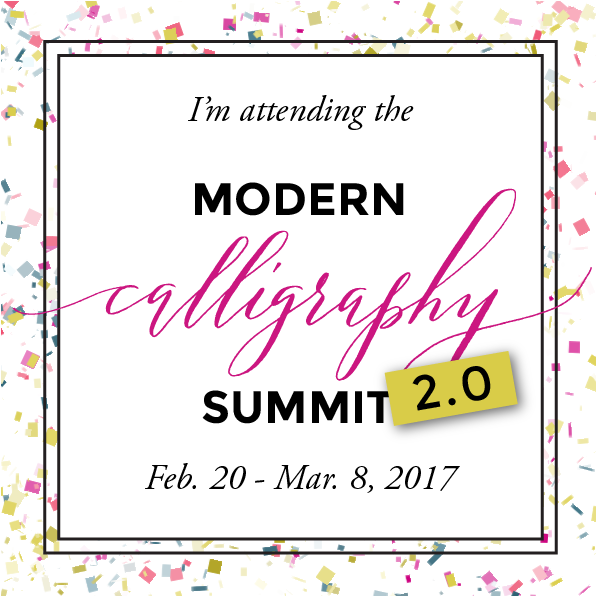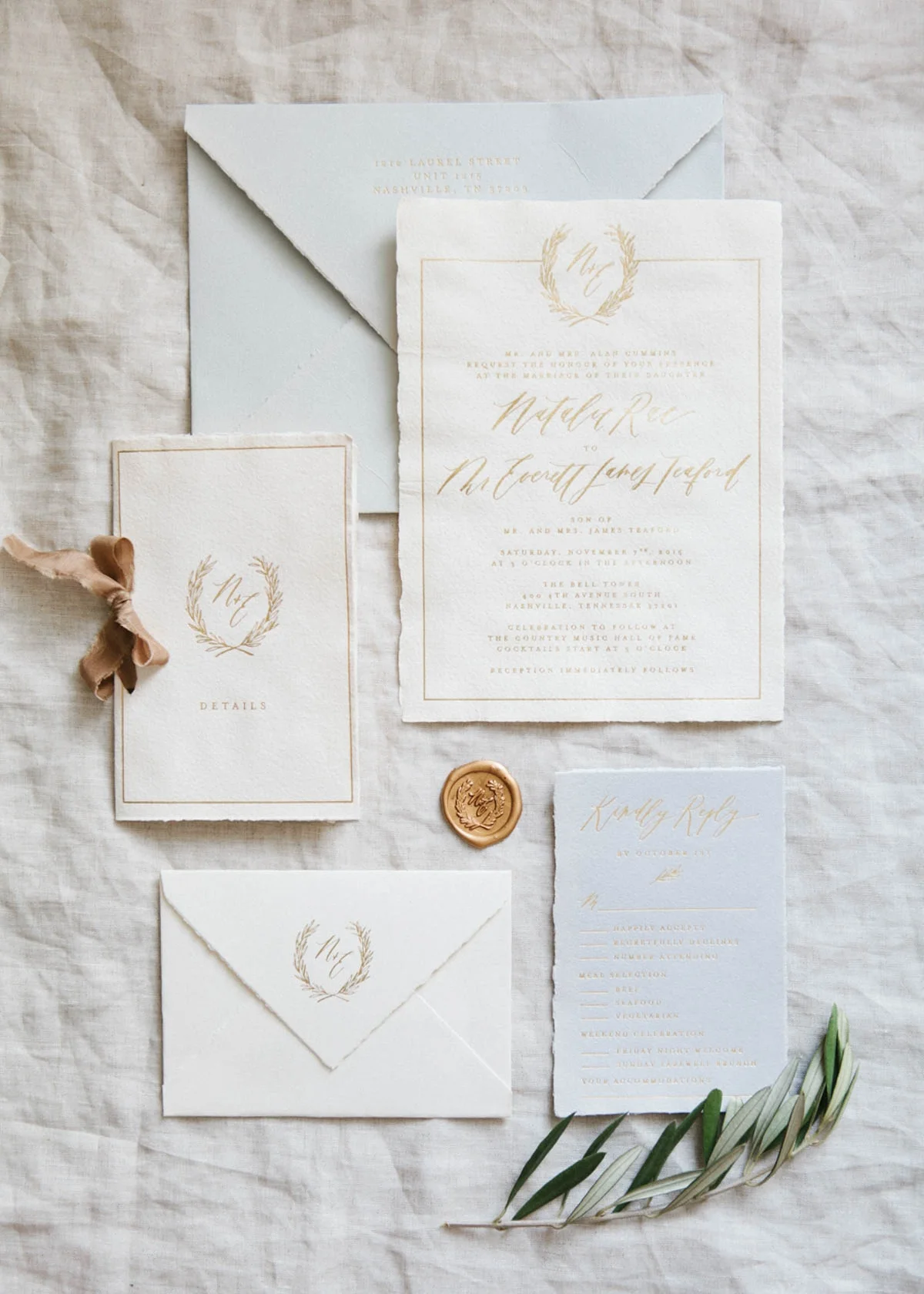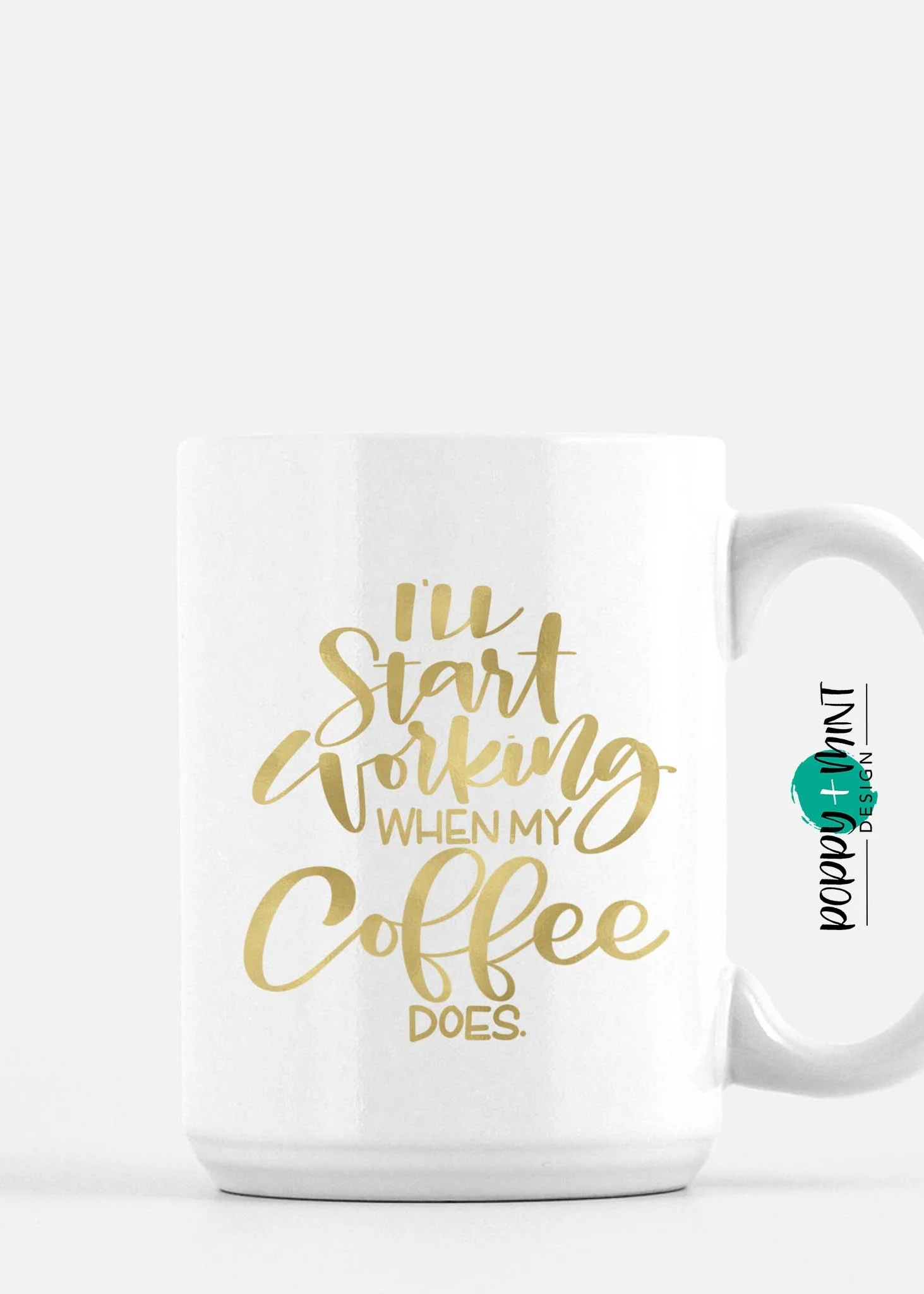
There are just a few days left of the Modern Calligraphy Summit 2.0 and I have loved watching all the videos that have gone live so far. I'm grateful I can go back and watch these at anytime — thought I have kept up with viewing the lessons I haven't yet had time to complete all the exercises myself. Below you will find links to each of the teachers' websites and Instagram accounts (click on their name for Instagram / photo for their website). I have been very inspired by the variety of styles and vast knowledge these ladies have shared, enjoy browsing through their work!
Modern Calligraphy Summit
I'm so excited to have enrolled in the Modern Calligraphy Summit 2.0! What really sold me was the tips for left-handed calligraphers. Before Christmas I was able to take a calligraphy workshop from Jim Fedor, and I know that this summit will get me practicing. Be on the lookout for a recap of my experience after the workshop!
Jim Fedor Quote
A few weeks ago I had the pleasure of participating in a Pointed Pen workshop with Jim Fedor at Hallmark and I loved this quote he shared with us. I have been practicing, and one of my goals for the new year is to really spend some time on pointed pen. Be on the lookout for a post about my progress, I know even sharing this will help keep me accountable. Have a happy Friday!